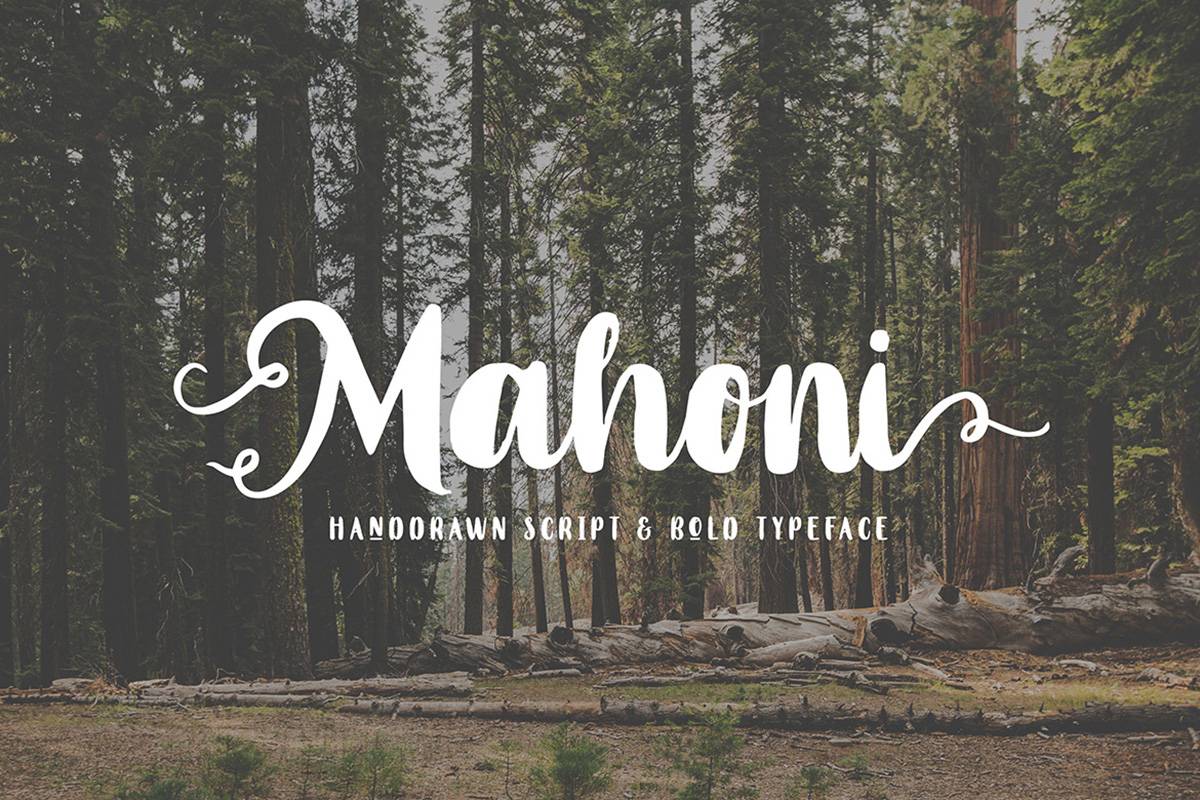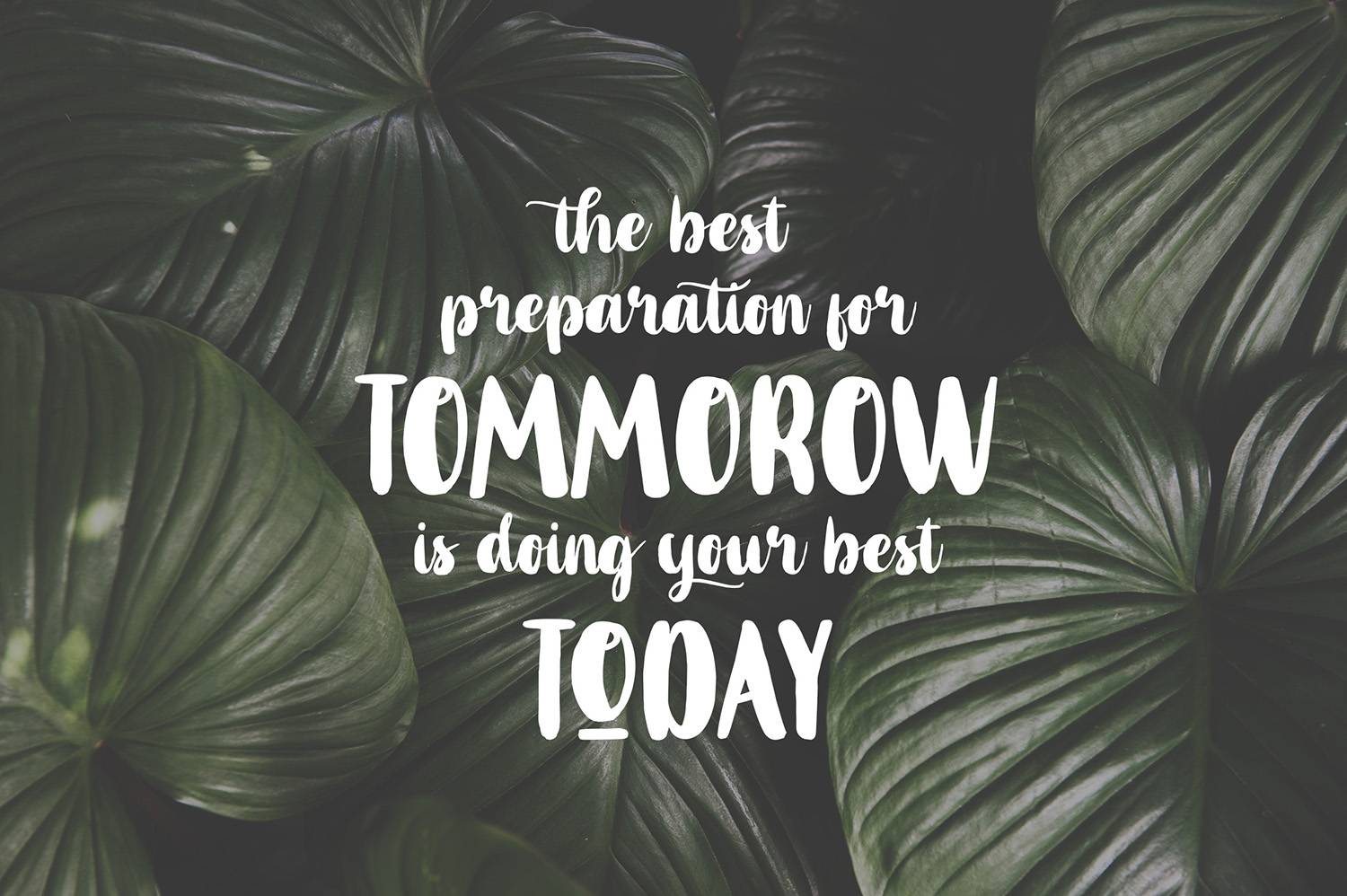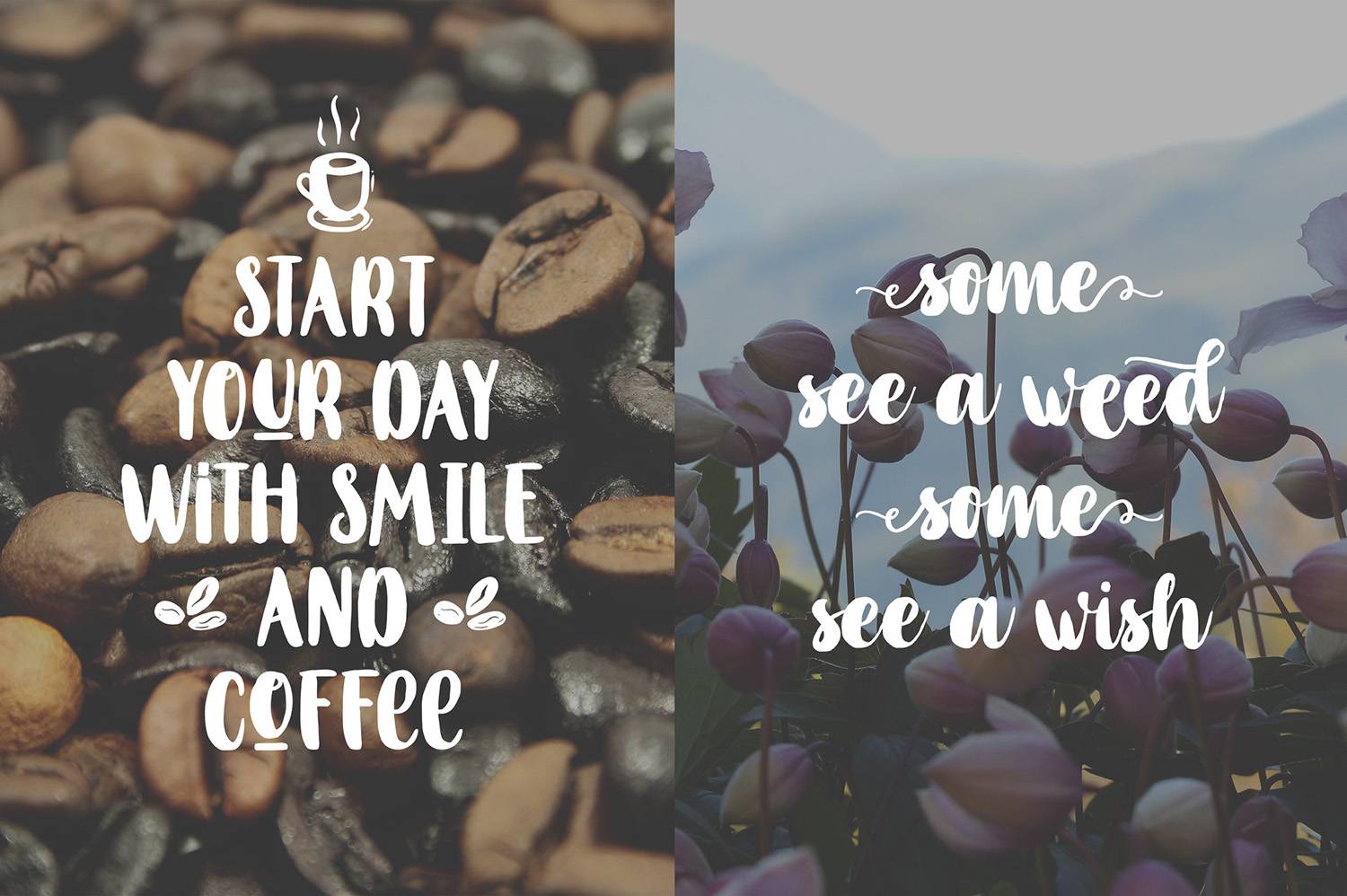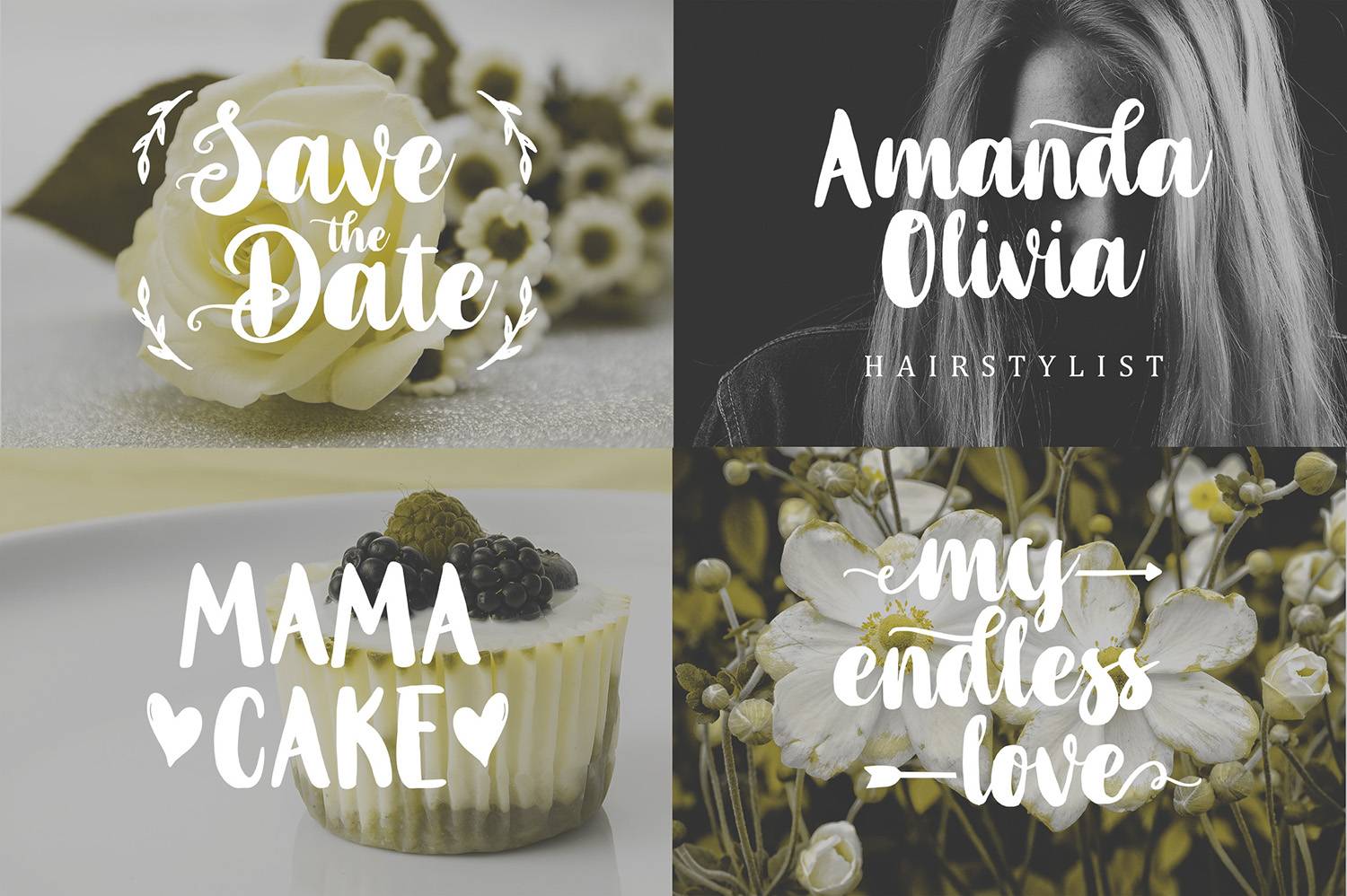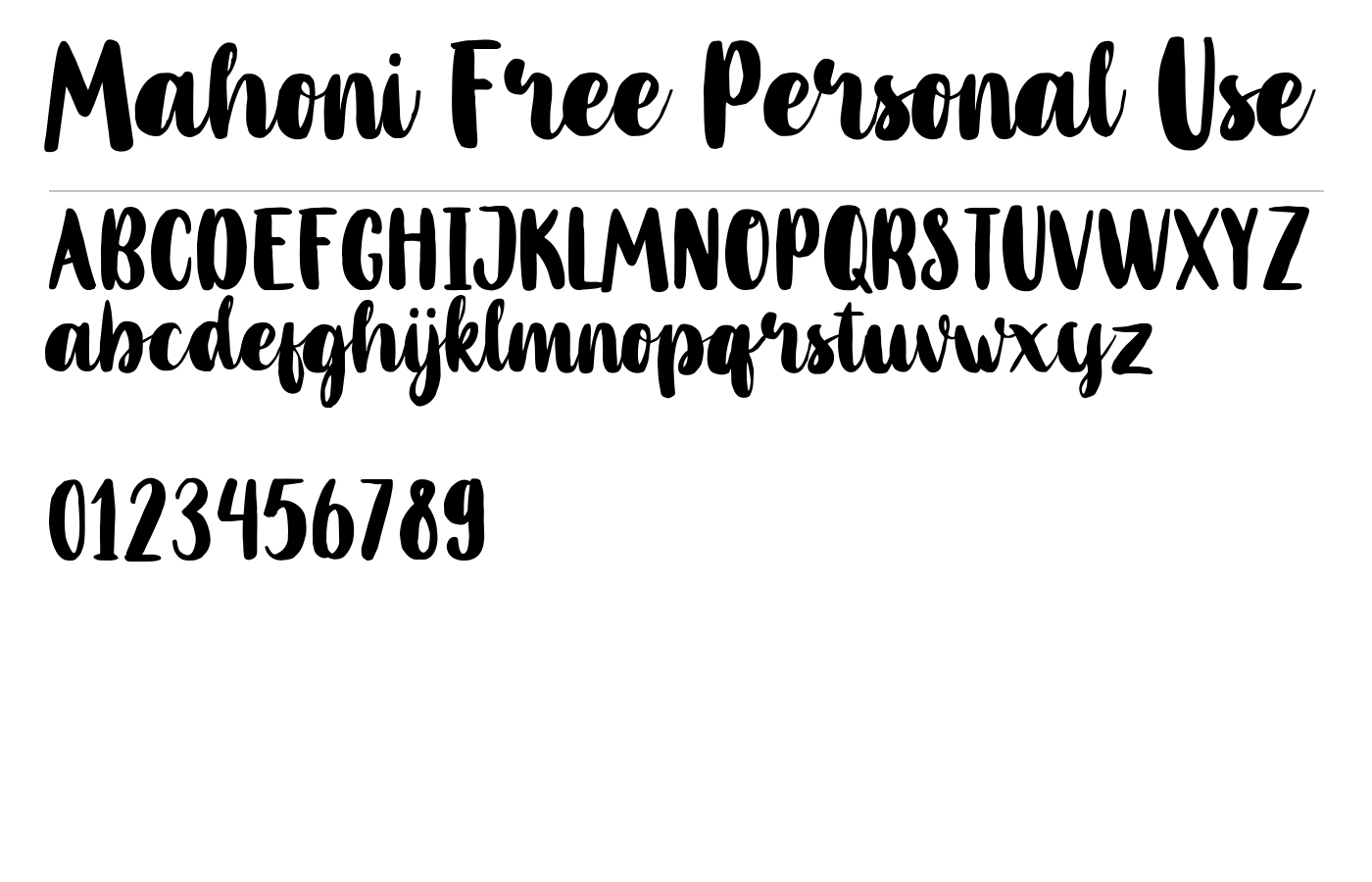
Mahoni is a playful and bold handwritten script font with a casual, friendly vibe. Its rounded, brush-like strokes and lively letterforms make it perfect for creative projects, invitations, logos, and branding that want to convey warmth and personality. With its clear readability and energetic style, it works well for headlines and display use where a fun, approachable look is desired.
| Font family | Mahoni Font |
| Designer | Andika Setiawan |